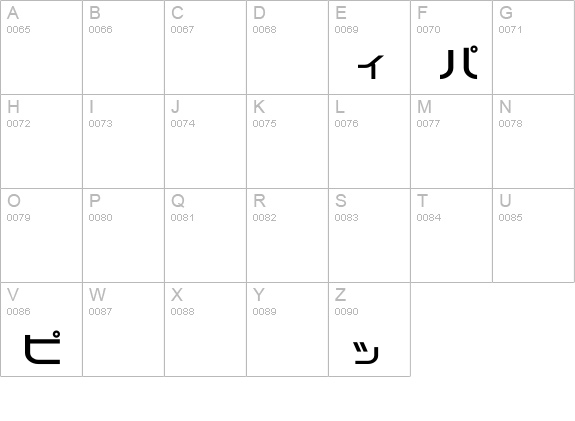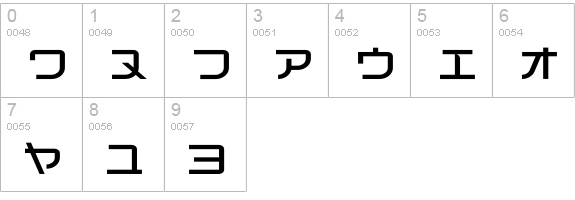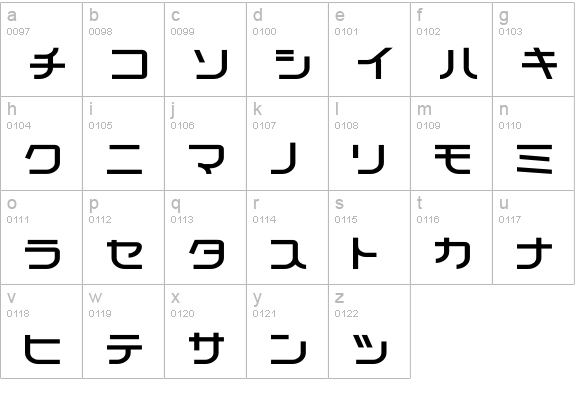
Lemonade-Normal Font Details
Lemonade-Normal is the standard, neutral variant in the Lemonade typeface family \xE2\x80\x94 well suited to general body text, paragraphs, and standard typographic work.
Lemonade-Normal font is a refreshing and vibrant typeface that will add a zesty touch to any design project. With its clean lines and playful curves, this font exudes a sense of energy and positivity. It is the perfect choice for creating eye-catching headlines, engaging logos, and captivating social media posts. This font strikes the perfect balance between legibility and creativity, making it suitable for a wide range of applications. Whether you're designing a website, crafting a brochure, or working on a branding project, Lemonade-Normal font will effortlessly bring your ideas to life. One of the best things about Lemonade-Normal font is that it is freely available to download at FontsMarket.com. This means that you can easily access this delightful font without any restrictions or hidden costs. Its availability on FontsMarket.com ensures that you can incorporate this font into your projects with ease and convenience. The Lemonade-Normal font is designed with versatility in mind, allowing you to use it in both personal and commercial projects. Its wide range of glyphs and characters give you the freedom to express your creativity and add a unique touch to your designs. So why wait? Download the Lemonade-Normal font from FontsMarket.com today and infuse your designs with a burst of zest and style. Get ready to make a statement and captivate your audience with this free and fabulous font choice.